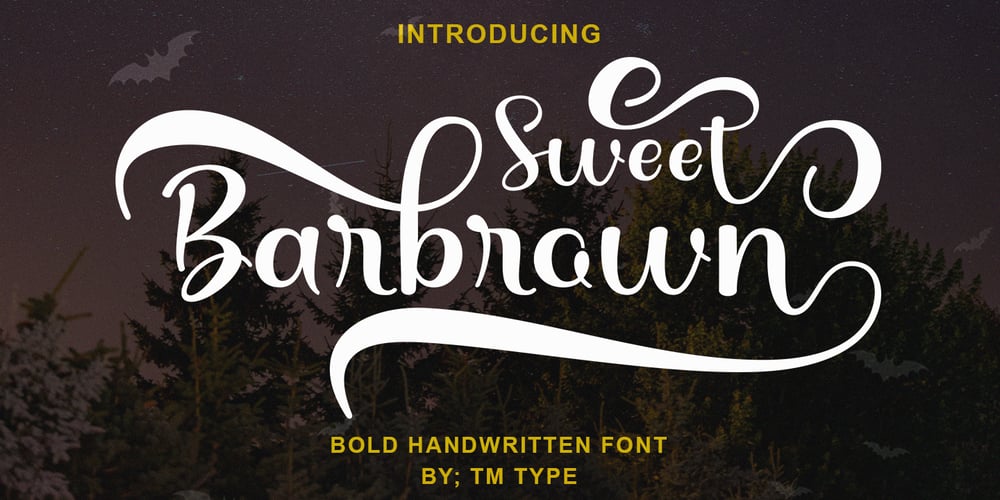
Sweet Barbrown Font Family was designed by Teuku Bustami and published by TM Type. Sweet Barbrown contains 1 styles and family package options. Sweet Barbrown is a cute and bold script font with an incredibly friendly feel. Whether you’re looking for fonts for Instagram or calligraphy scripts for DIY projects, this font will turn any creative idea into a true piece of art!